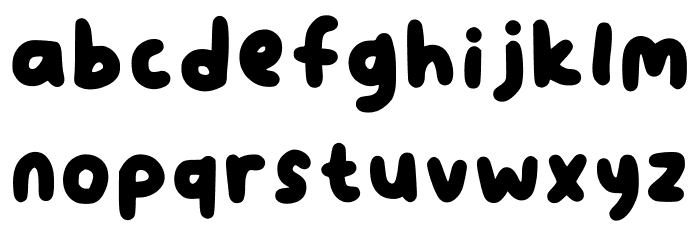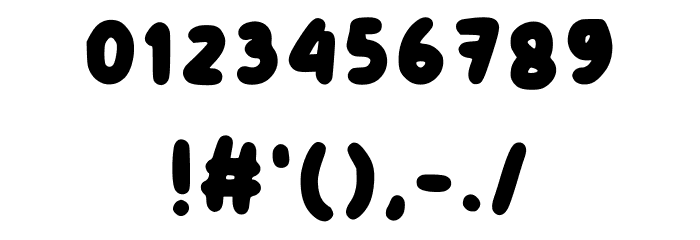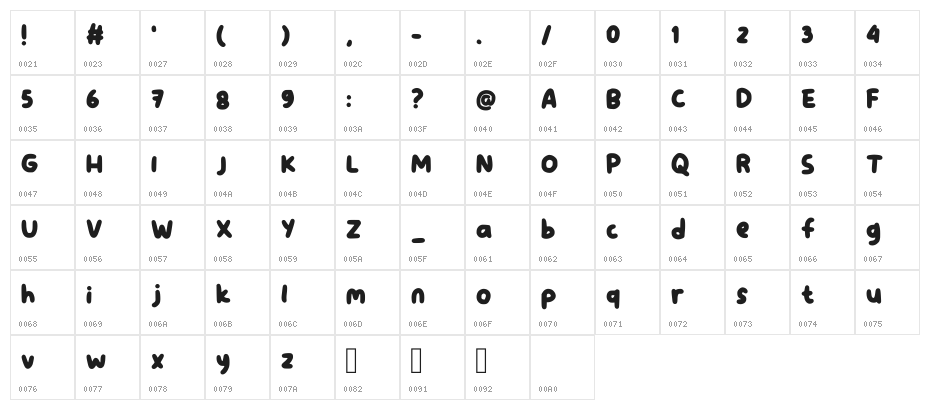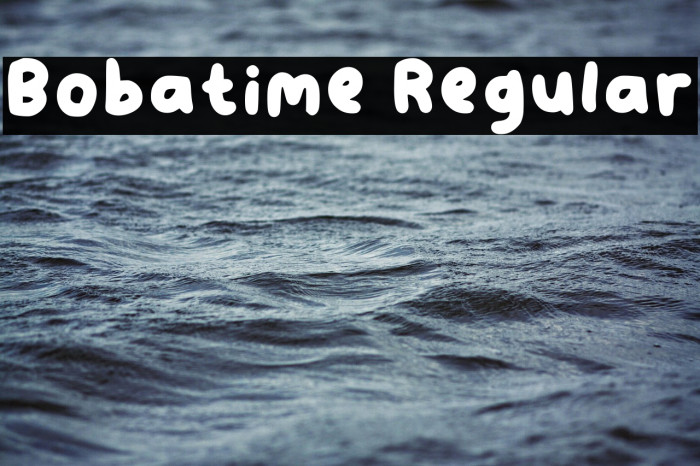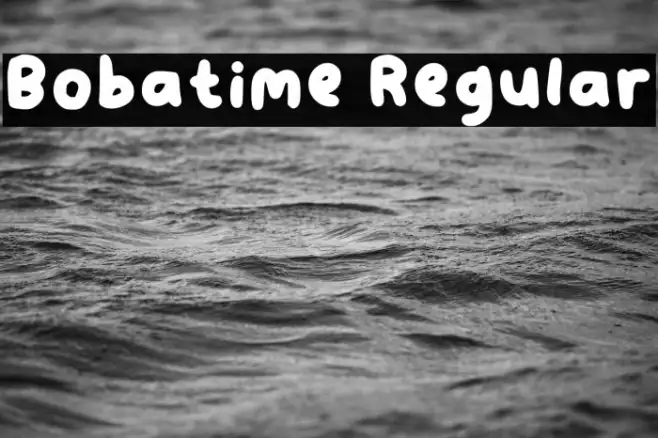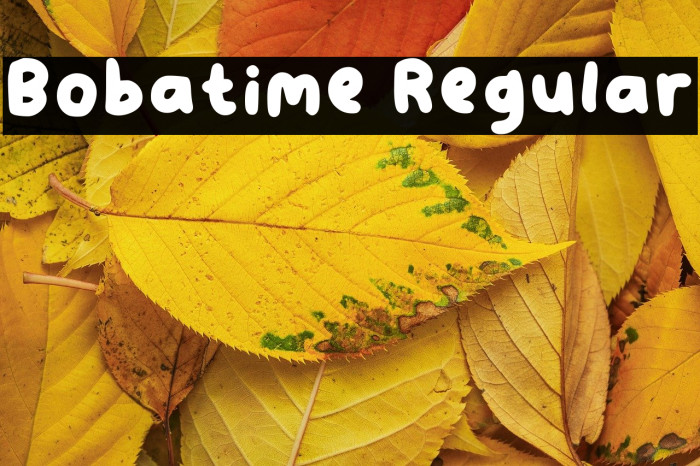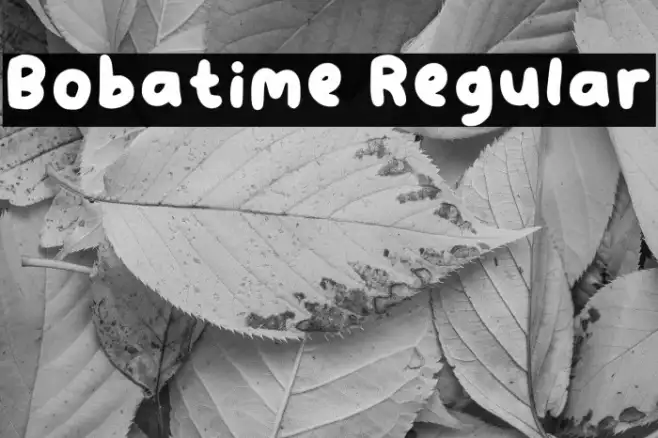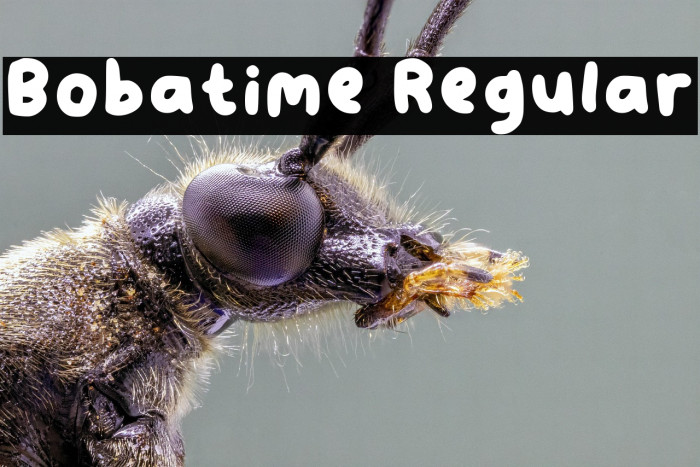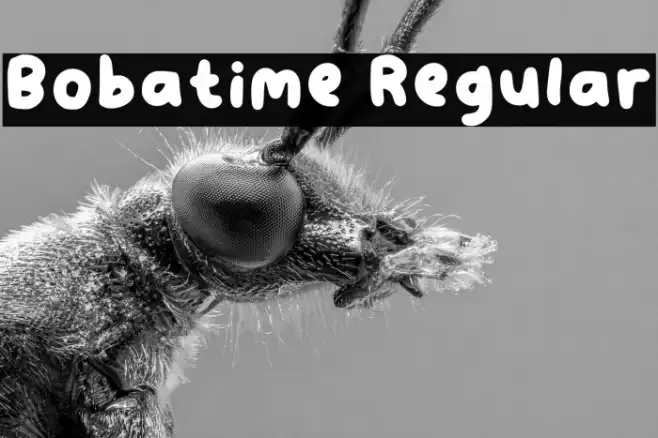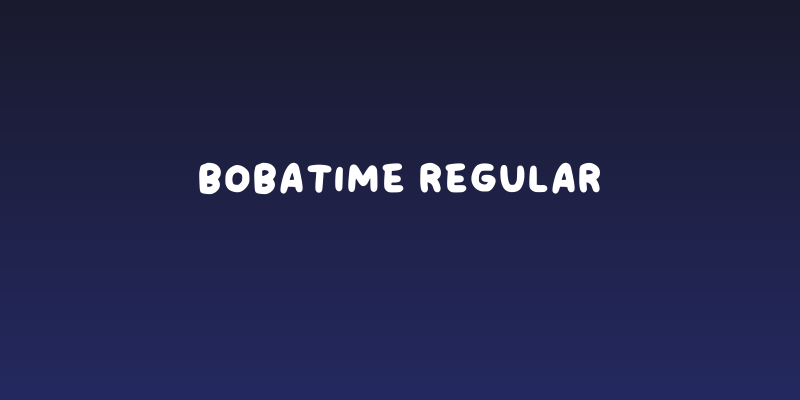
Bobatime Regular Font
This playful and rounded font features bold, smooth curves that give it a friendly and approachable appearance. The characters are evenly weighted, with a consistent thickness throughout, creating a harmonious and balanced look. The rounded edges and lack of sharp angles contribute to its casual and informal style, making it ideal for projects that require a touch of whimsy and fun. The font maintains a uniform character spacing, ensuring readability while adding a unique charm. Its simplicity and boldness make it suitable for a variety of creative applications.
A playful, rounded font with bold, smooth curves and a friendly appearance.
- Font: Bobatime Regular
- Proposed Projects: Ideal for children's books, playful branding, casual invitations, and social media graphics.
- Overall Style: Playful